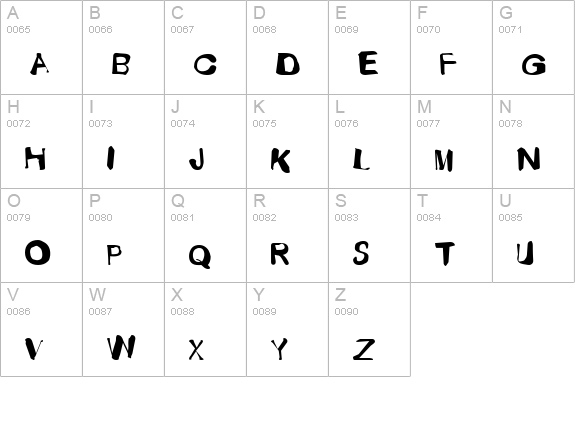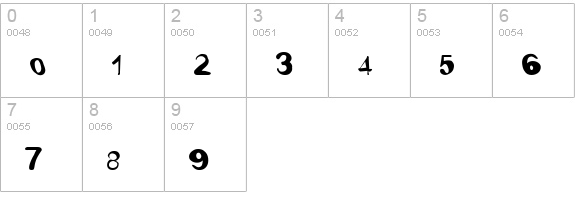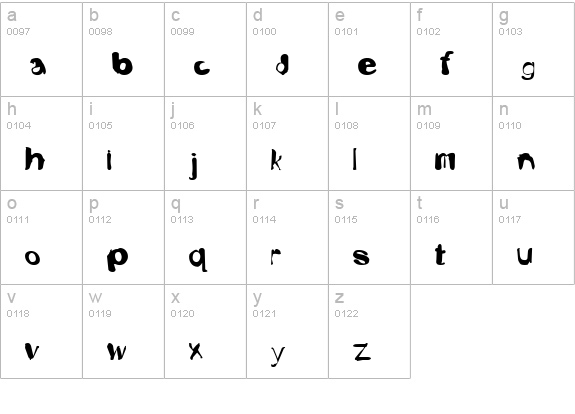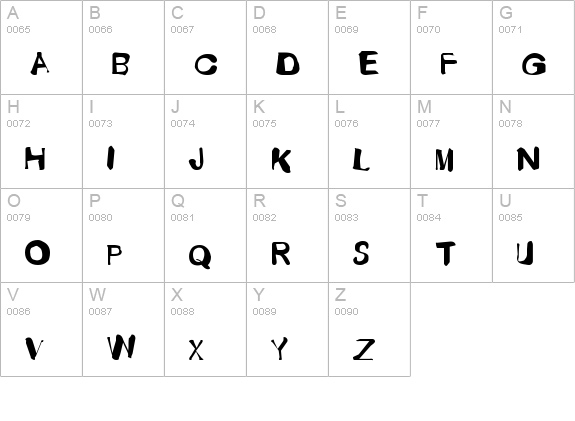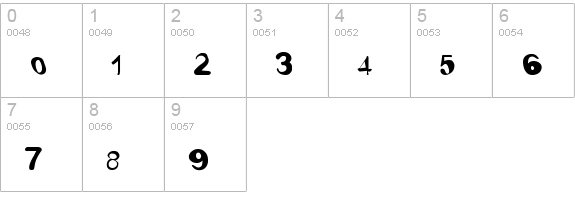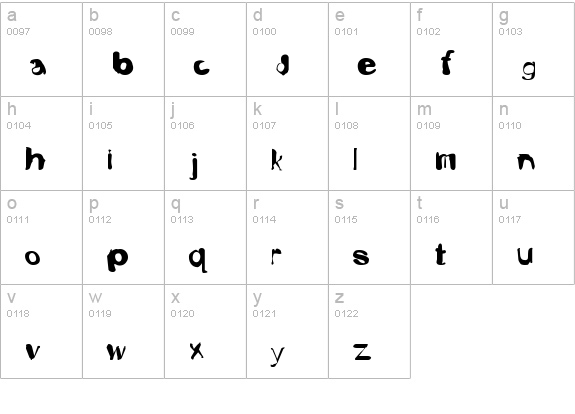
Fusty Luggs Font Details
Introducing Fusty Luggs font, a unique and quirky typeface that exudes charm and character. With its hand-drawn appearance and playful design, Fusty Luggs is perfect for adding a touch of whimsy to your projects. This free font is freely available to download at FontsMarket.com, making it accessible to all designers and creatives looking to add a fun and distinctive element to their work. Whether you're designing posters, invitations, or social media graphics, Fusty Luggs is sure to make a statement and capture attention. Embrace the playful spirit of Fusty Luggs font and let your creativity shine with this delightful typeface!